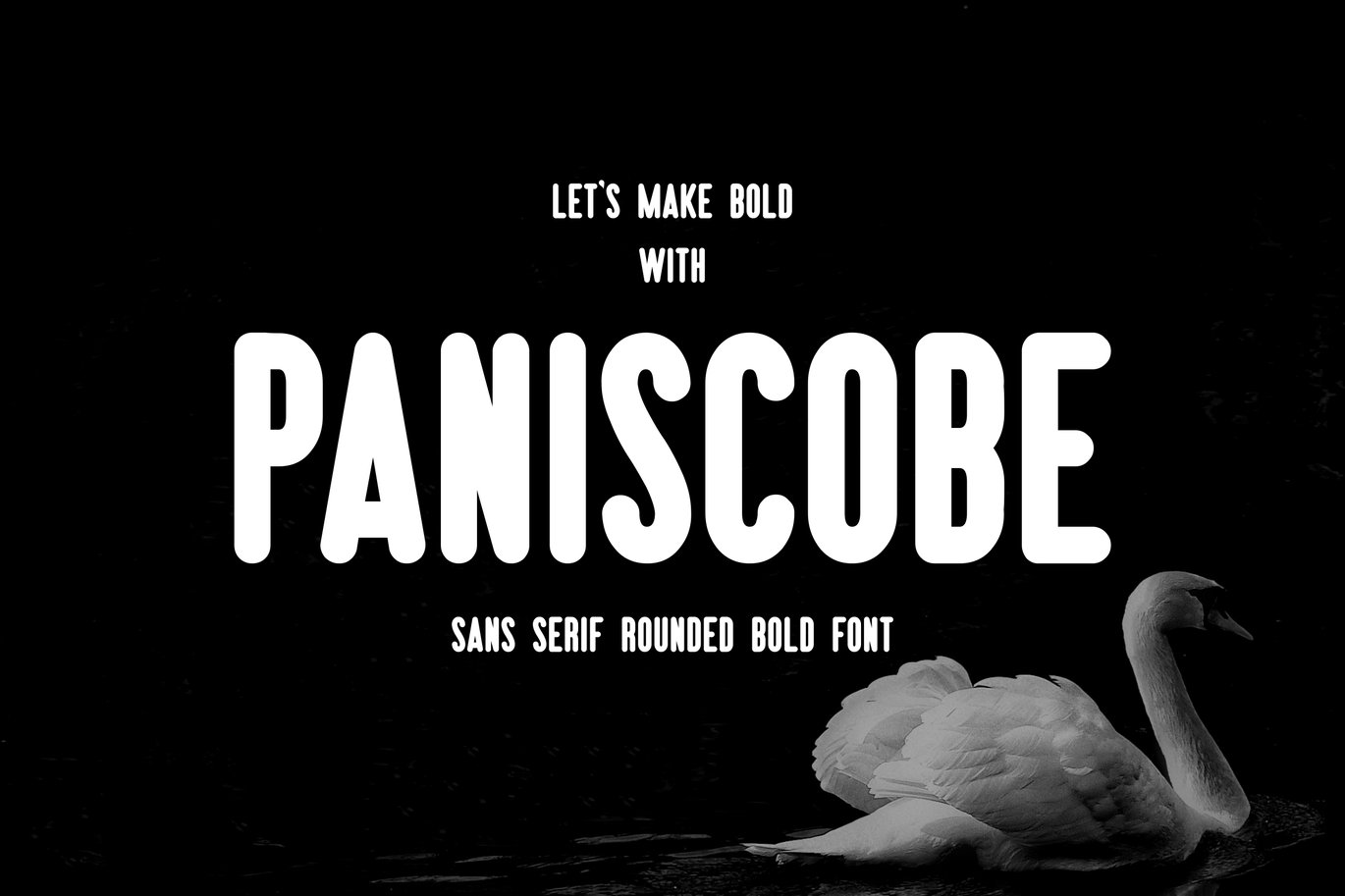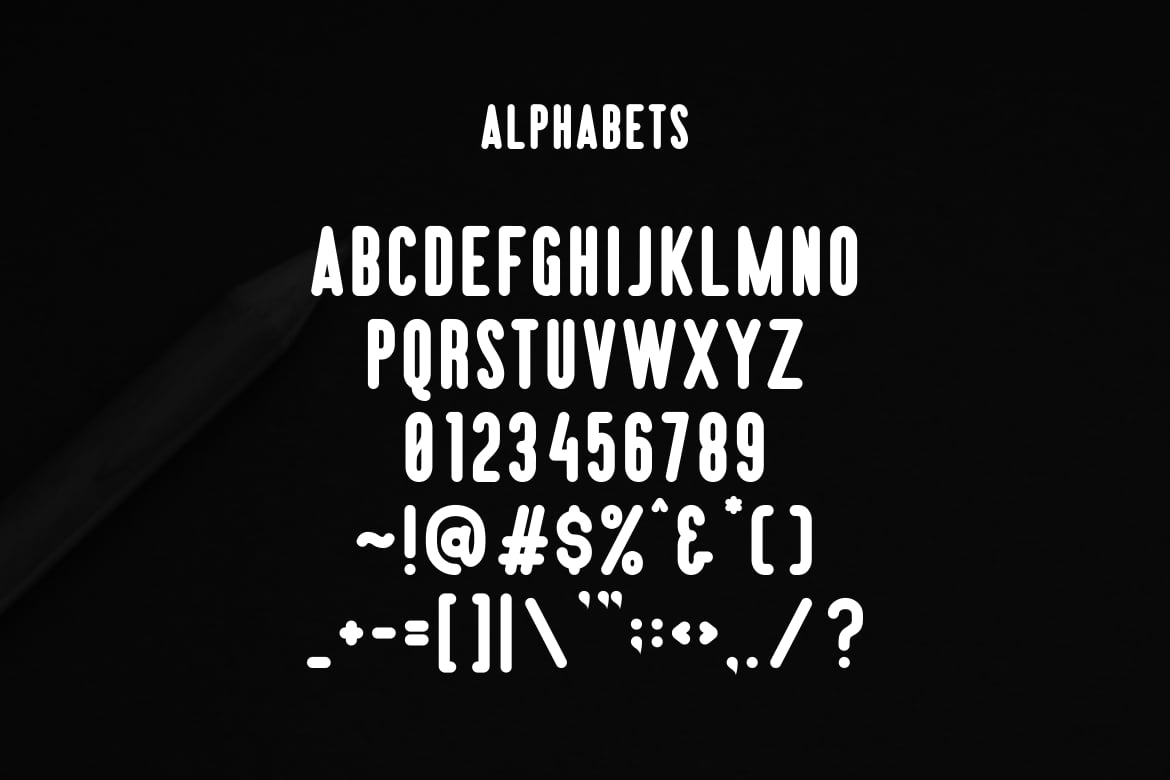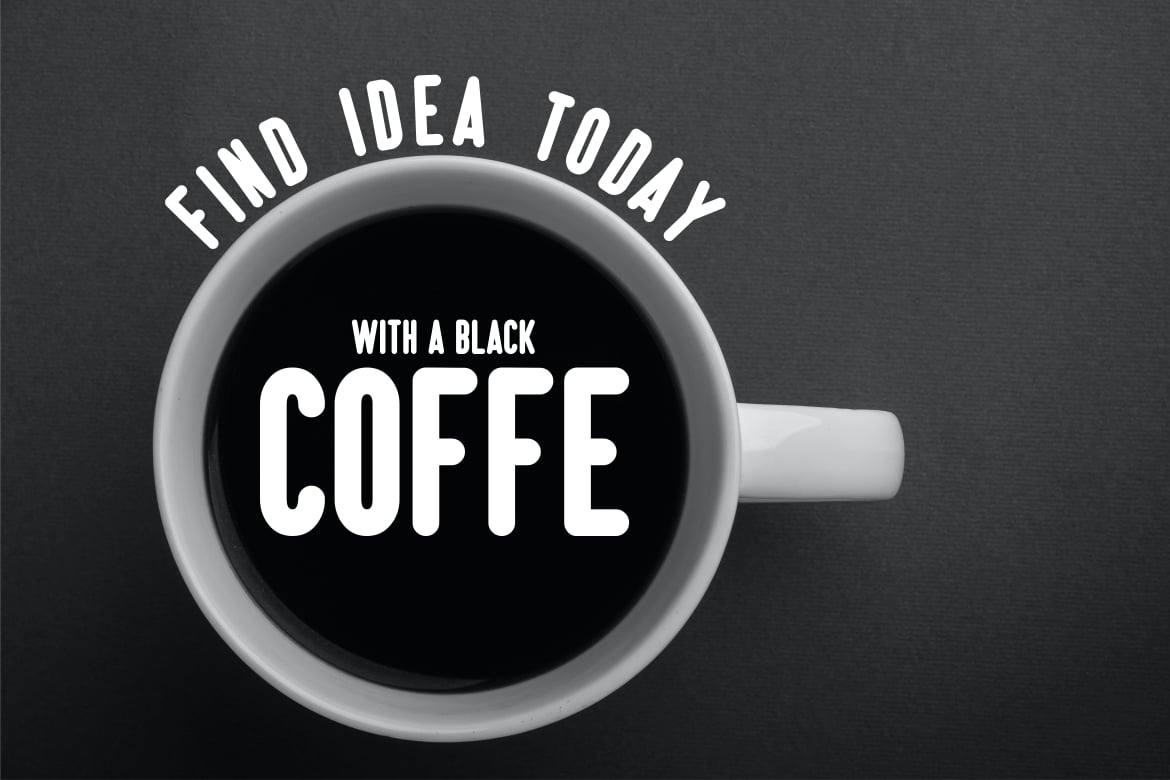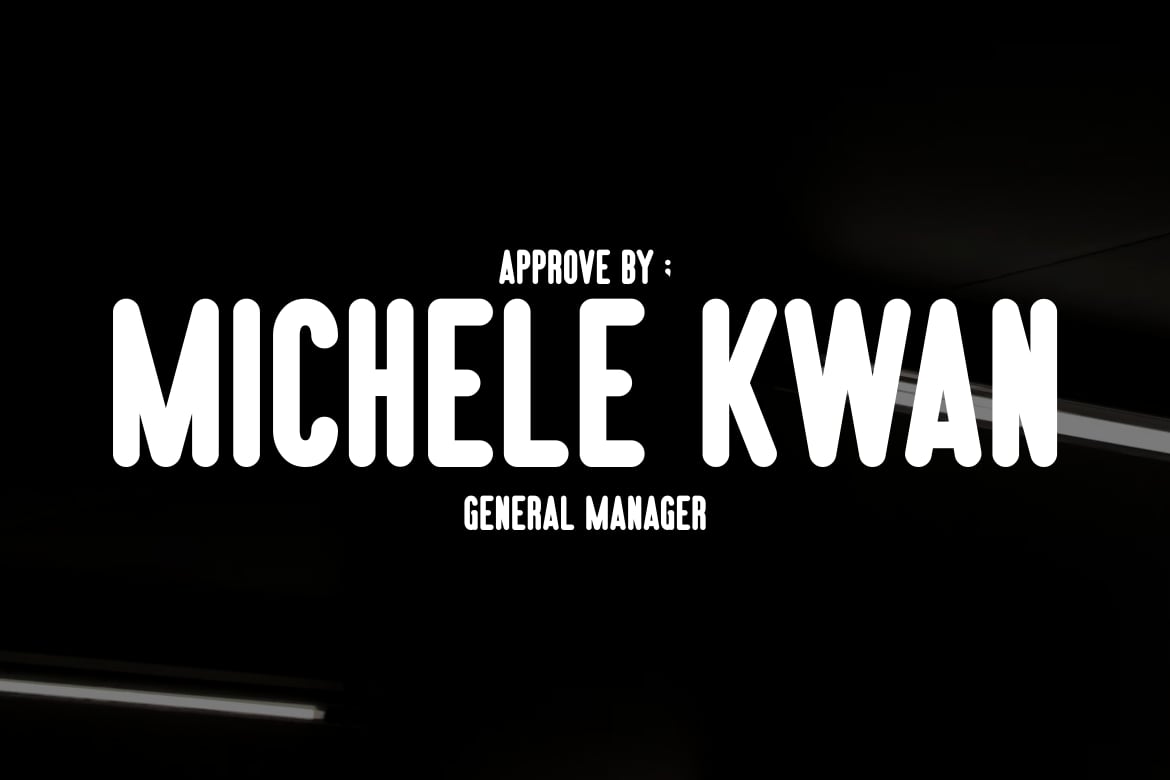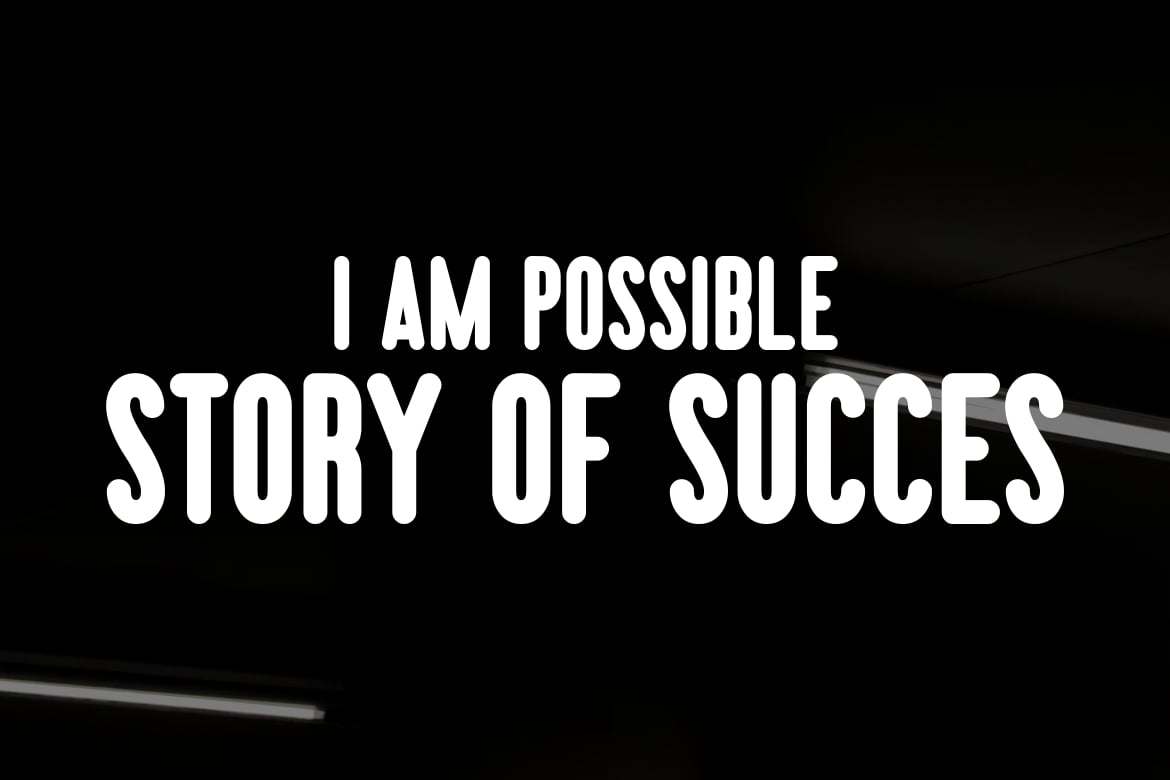
Paniscobe Bold Font
With a dazzling thick appearance, it gives a clear impression on every job.\
Usable fonts:
- Cover in Magazine
- Pin on Jobs
- Presenting “Words” to Emphasize the Purpose of the Synopsis conveyed
- Trademarks / Signatures that are usually found in important files